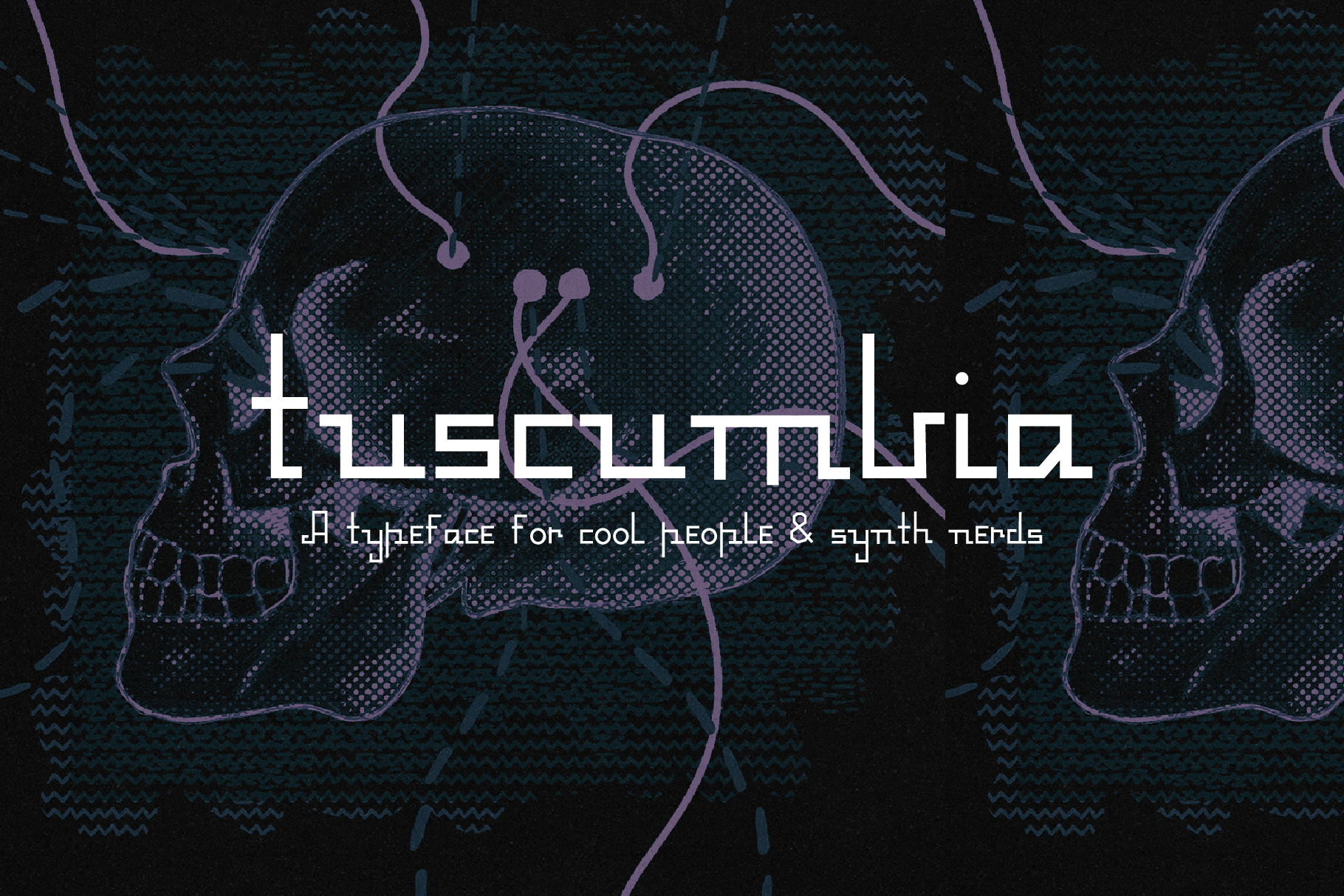
Tuscumbia Font
Tuscumbia is a font that works wells for album covers, synth gear and much more! It was inspired by Helen Keller's handwriting - which I instantly fell in love with!